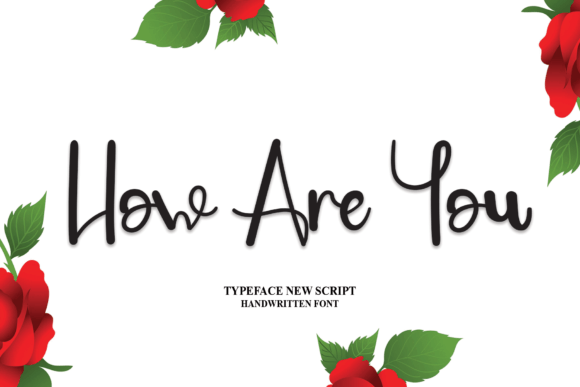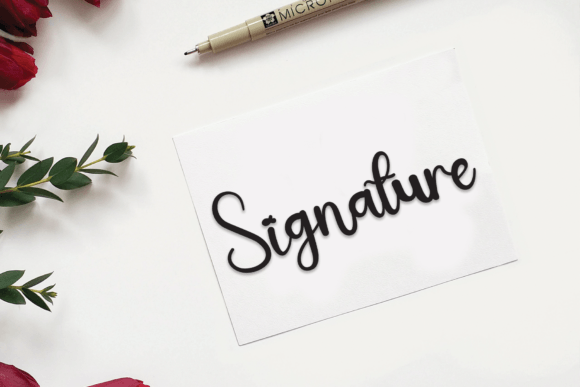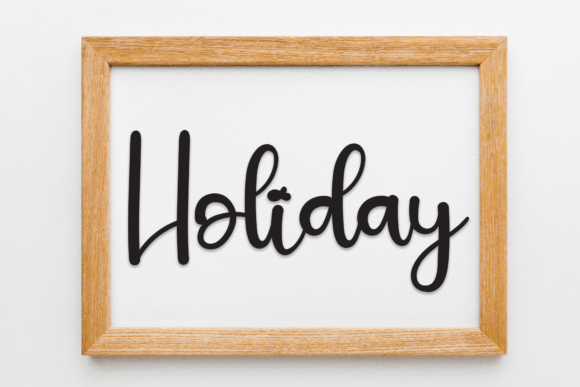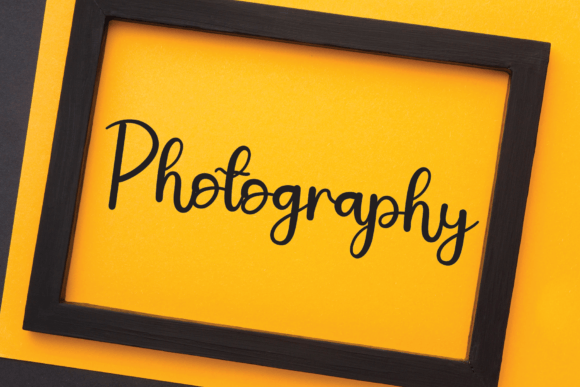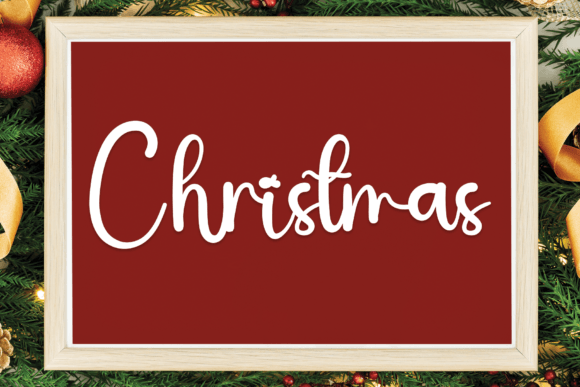
How Are You Font
Make a Statement with How Are You Font
How Are You Font is a warm and welcoming handwritten typeface designed to give your creative projects a personal and natural vibe. Whether you’re crafting designs for print or digital platforms, this font brings friendliness and originality to every layout.
Designed for Everyday Creativity
This versatile font is ideal for all kinds of creative work. You can confidently use it in:
• Social media graphics and YouTube thumbnails
• Journals, planners, and personal blogs
• Product packaging, mugs, and labels
• DIY projects and Canva templates
Because of its simple yet expressive style, the How Are You Font fits both playful and professional uses.
Fonts help set the tone of your message, and this one excels at communicating warmth and authenticity. Its flowing strokes and consistent letterforms make it easy to read while maintaining that delightful hand-crafted feel. If you want your words to stand out naturally, downloading How Are You Font is a smart choice.
Add Charm to Your Brand or Message
For small business owners, bloggers, or social media creators, How Are You Font offers a quick way to elevate your visuals. It adds an inviting, down-to-earth aesthetic to logos, packaging, and marketing materials. No matter the purpose, this font supports your message without overwhelming it.